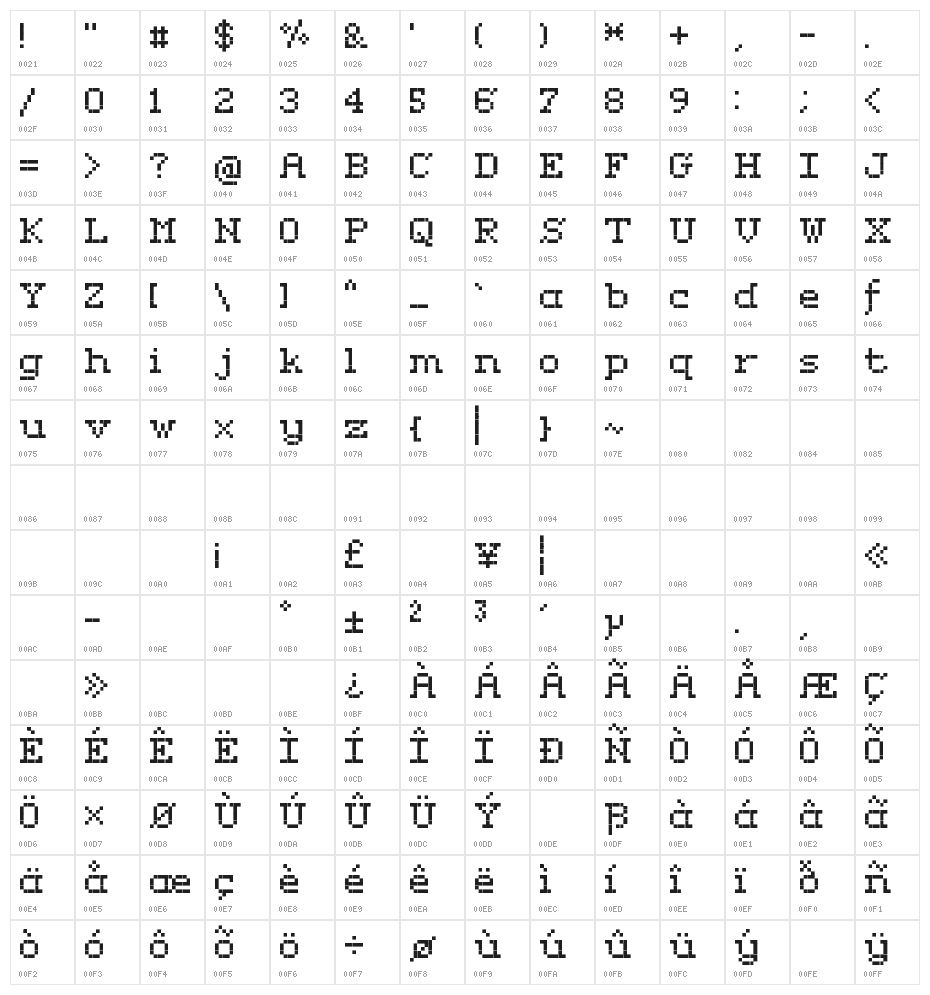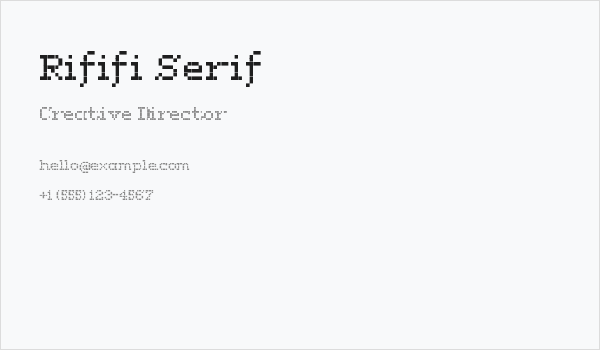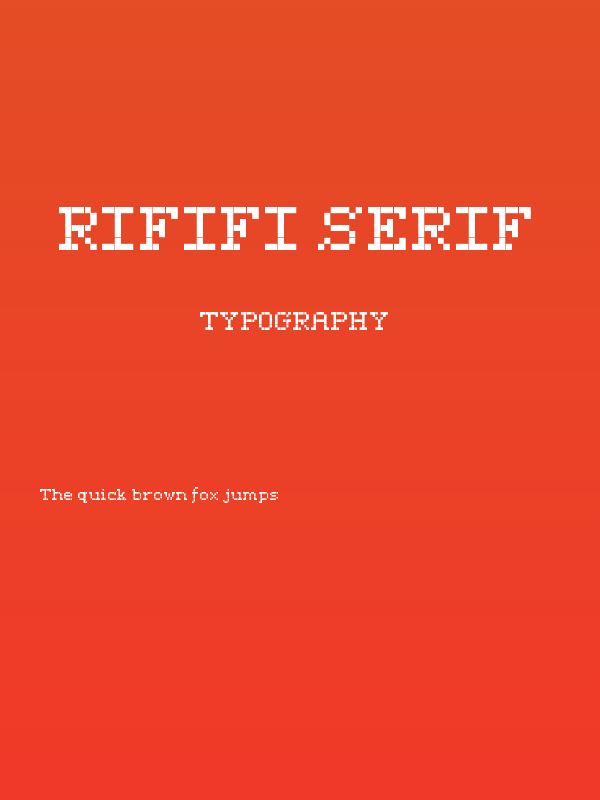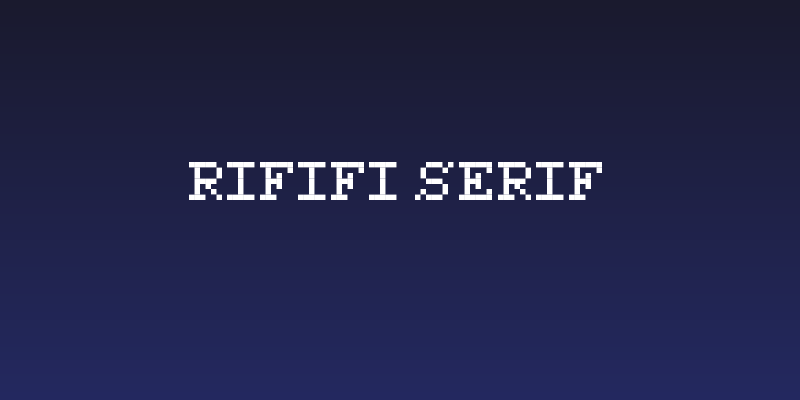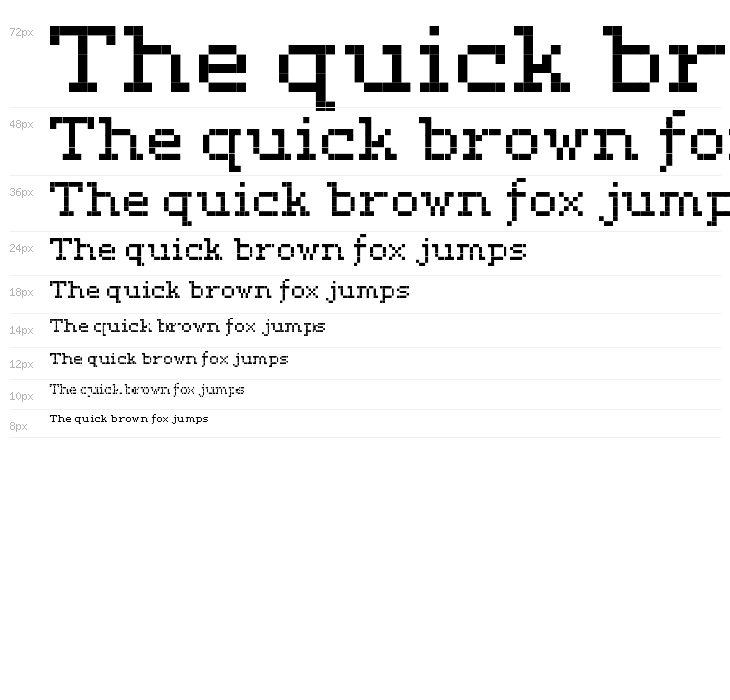
Rififi Serif Font
Rififi Serif Description
This font features a distinct pixelated style reminiscent of early digital displays and retro video games. Each character is composed of small, square blocks, giving it a unique, nostalgic appearance. The uppercase and lowercase letters maintain a consistent height and width, creating a uniform look across the board. Numbers and special characters follow the same pixelated design, ensuring a cohesive aesthetic. This font's blocky nature makes it particularly suitable for projects that aim to evoke a sense of nostalgia or a retro digital theme.
| Use Case | Logos, Headlines, Digital Art |
| Proposed Projects | Ideal for retro video game graphics, digital art projects, and nostalgic-themed designs. |